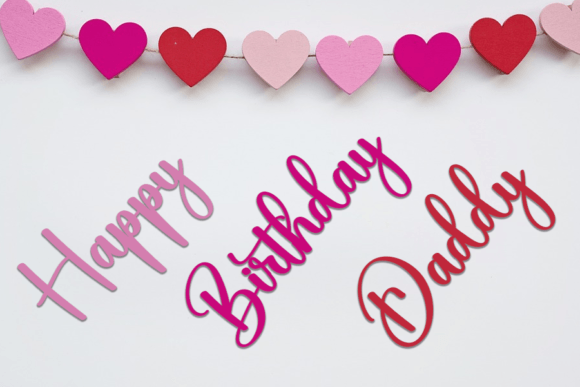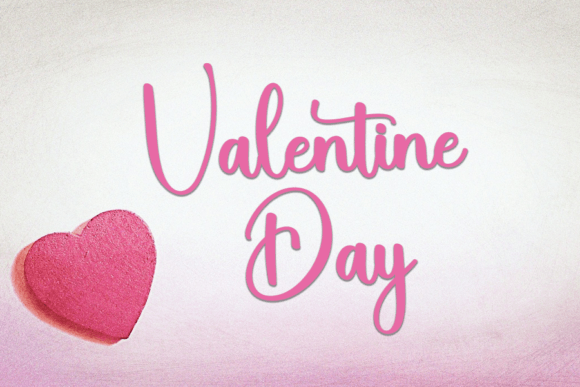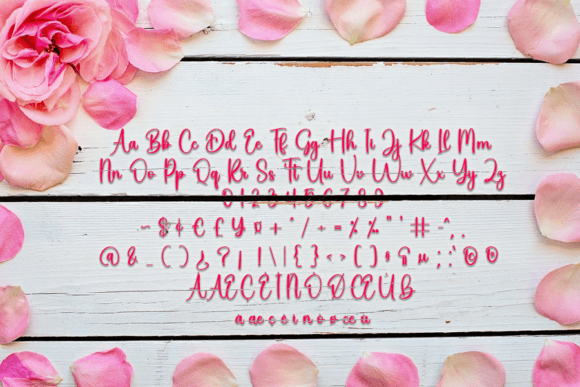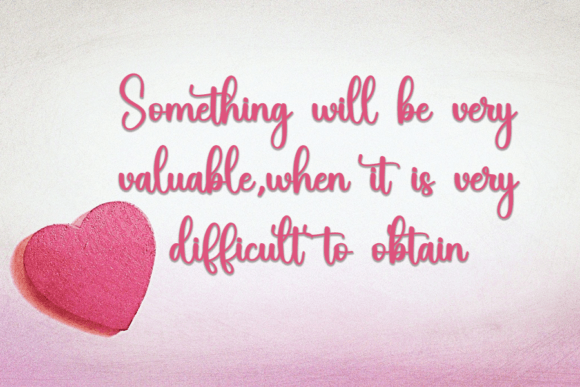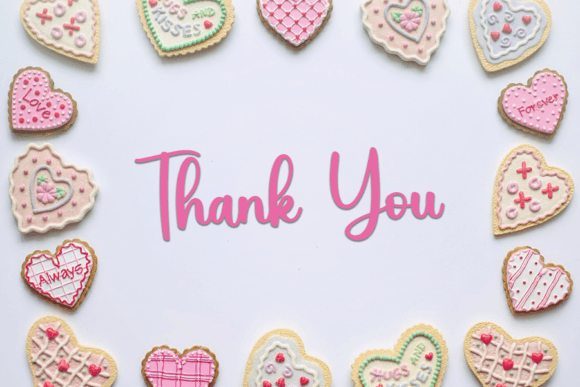
Introduction to Birthday Daddy Font
Birthday Daddy is a bold, gorgeous script font.
Key Features of Birthday Daddy Font
Why Choose Birthday Daddy Font?
Birthday Daddy Font offers exceptional quality and versatility, making it a valuable addition to your design toolkit. Whether you’re creating for personal projects or commercial use, Birthday Daddy Font delivers professional results.